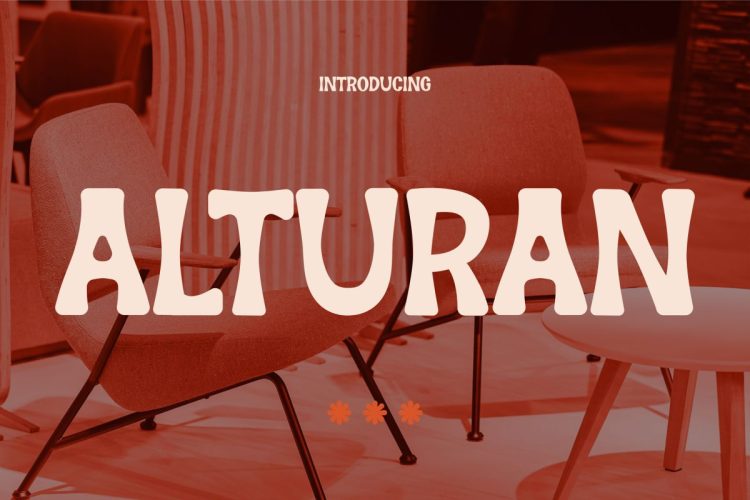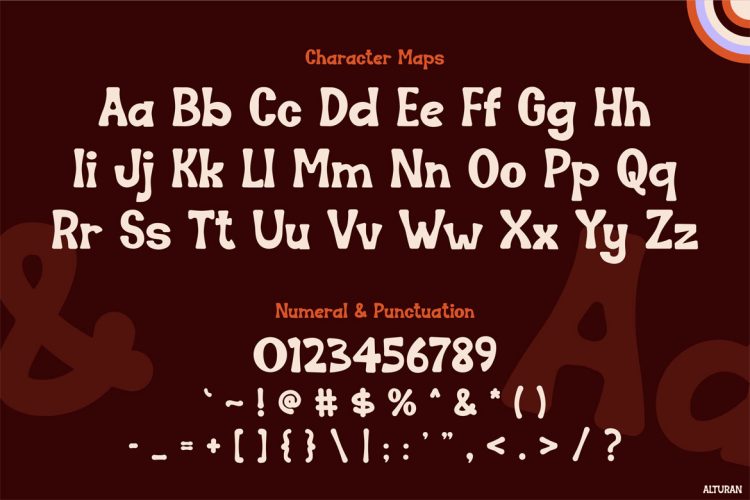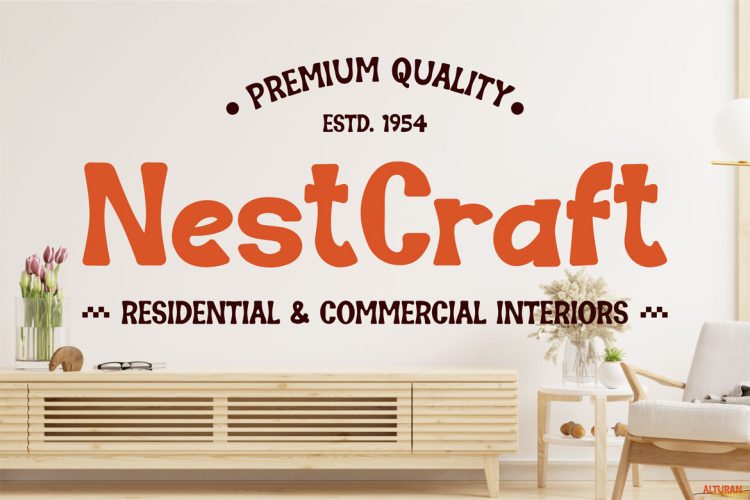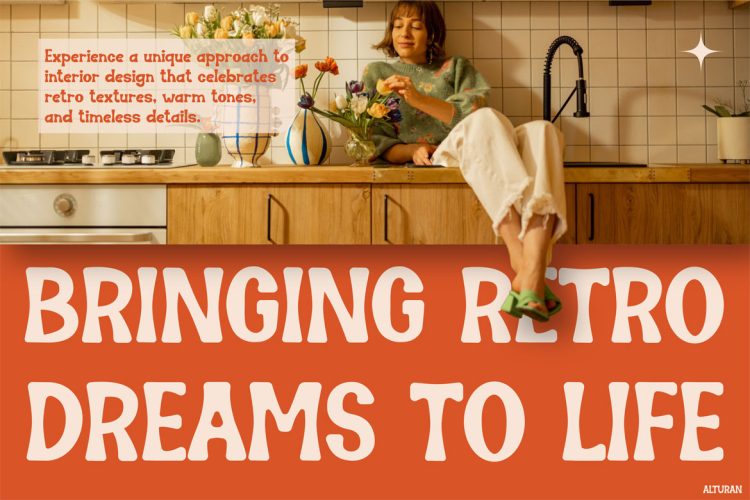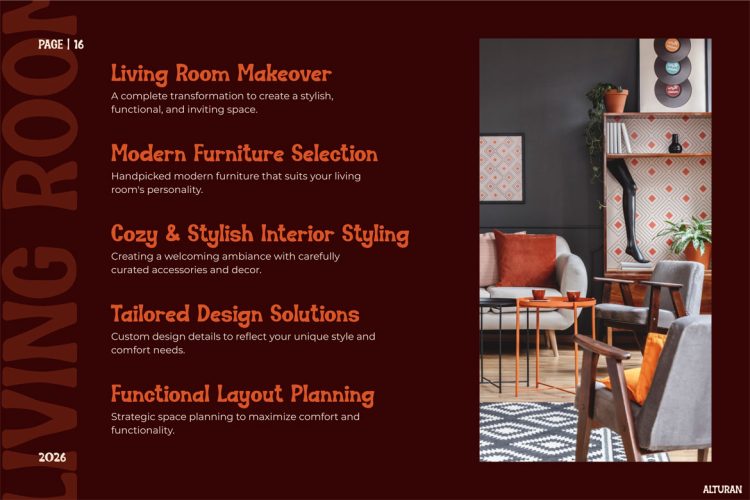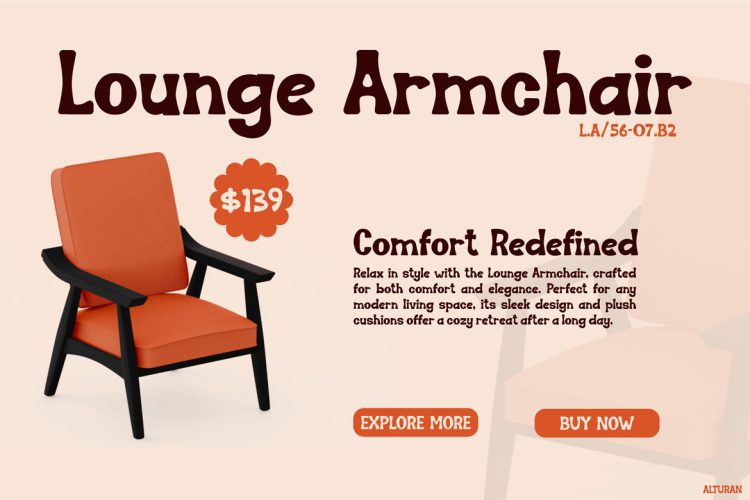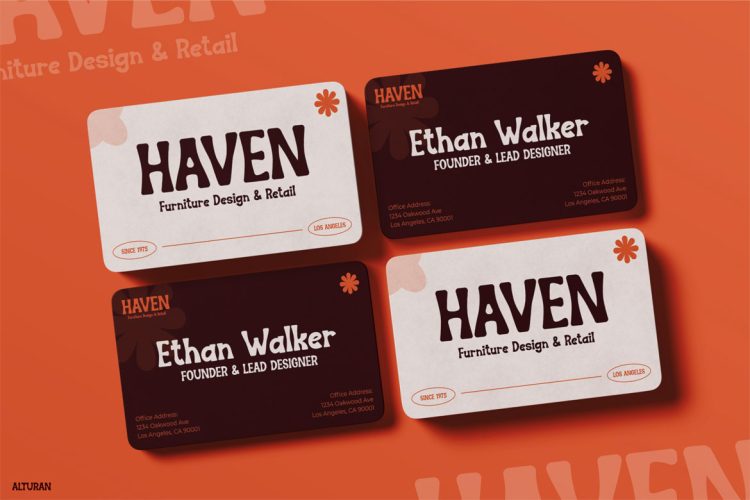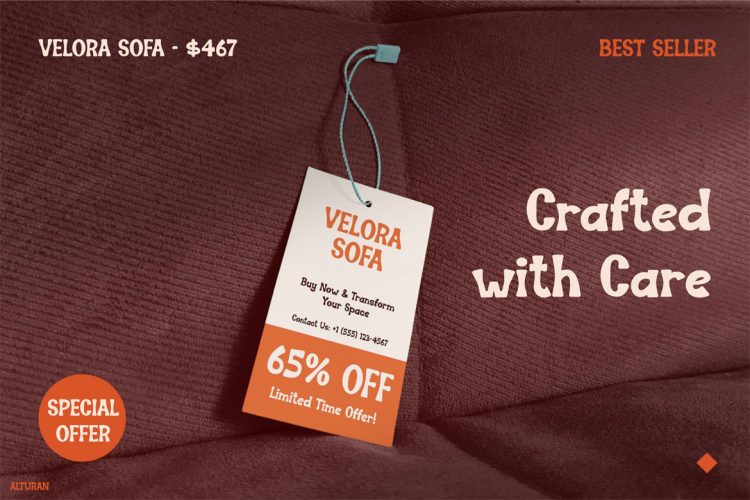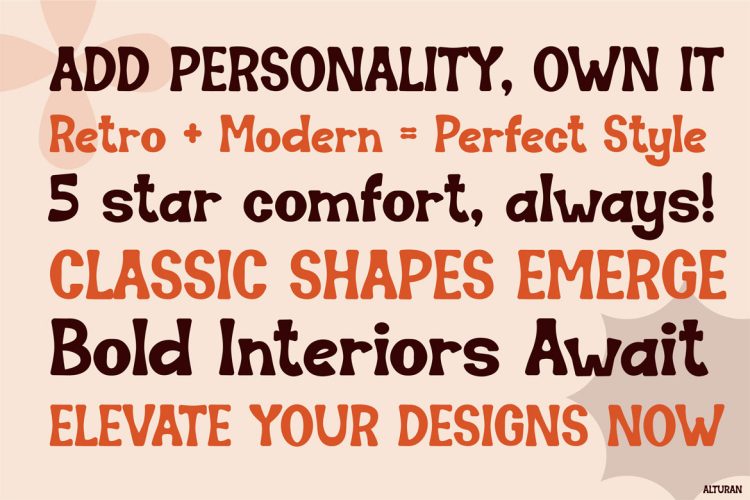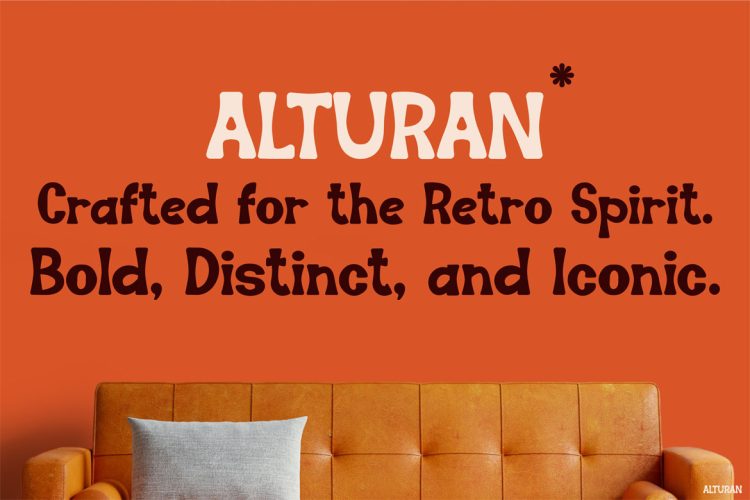
Alturan โ Retro Warmth, Modern Confidence
Retro Font Alturan opens with a bold yet welcoming personality that instantly brings vintage interiors and classic design stories to life. From the first glance, this font feels warm, handcrafted, and confident. Its rounded letterforms, soft curves, and sturdy structure echo retro furniture labels, mid-century posters, and timeless interior branding. At the same time, Alturan stays highly readable, which makes it practical for modern layouts. Because of this balance, the font delivers both emotional charm and clear communication. Moreover, its bold weight helps headlines stand out without feeling aggressive. As a result, every word feels intentional, stylish, and easy to read across digital and print formats.
Alturan is designed to support creative projects that need character, warmth, and strong visual presence. First, its retro-inspired shapes give designs a nostalgic tone that feels authentic rather than outdated. Then, its clean spacing ensures consistent readability, even at smaller sizes. In addition, Alturan performs beautifully on posters, signage, packaging, and social media visuals. Whether used for bold headlines or short promotional text, it keeps layouts engaging and balanced. Furthermore, the font pairs well with minimalist layouts, allowing it to shine as a statement element. Because of its versatility, Alturan works smoothly across branding systems, editorial designs, and interior-focused visuals.
Who Is It For
Retro Font Alturan fits designers who want to add personality without sacrificing clarity. It is ideal for interior designers, furniture brands, lifestyle labels, cafรฉs, and boutique businesses. Likewise, it suits creatives working on retro-themed branding, home dรฉcor promotions, or editorial layouts. Content creators, marketers, and small business owners can also rely on Alturan to create warm, trustworthy visuals. Most importantly, anyone who values bold style with a friendly tone will find this font easy to use and visually rewarding.
Alturan invites your audience to feel at home while staying visually inspired. So, if you want a font that blends retro soul with modern usability, Alturan is ready to elevate your designs today.